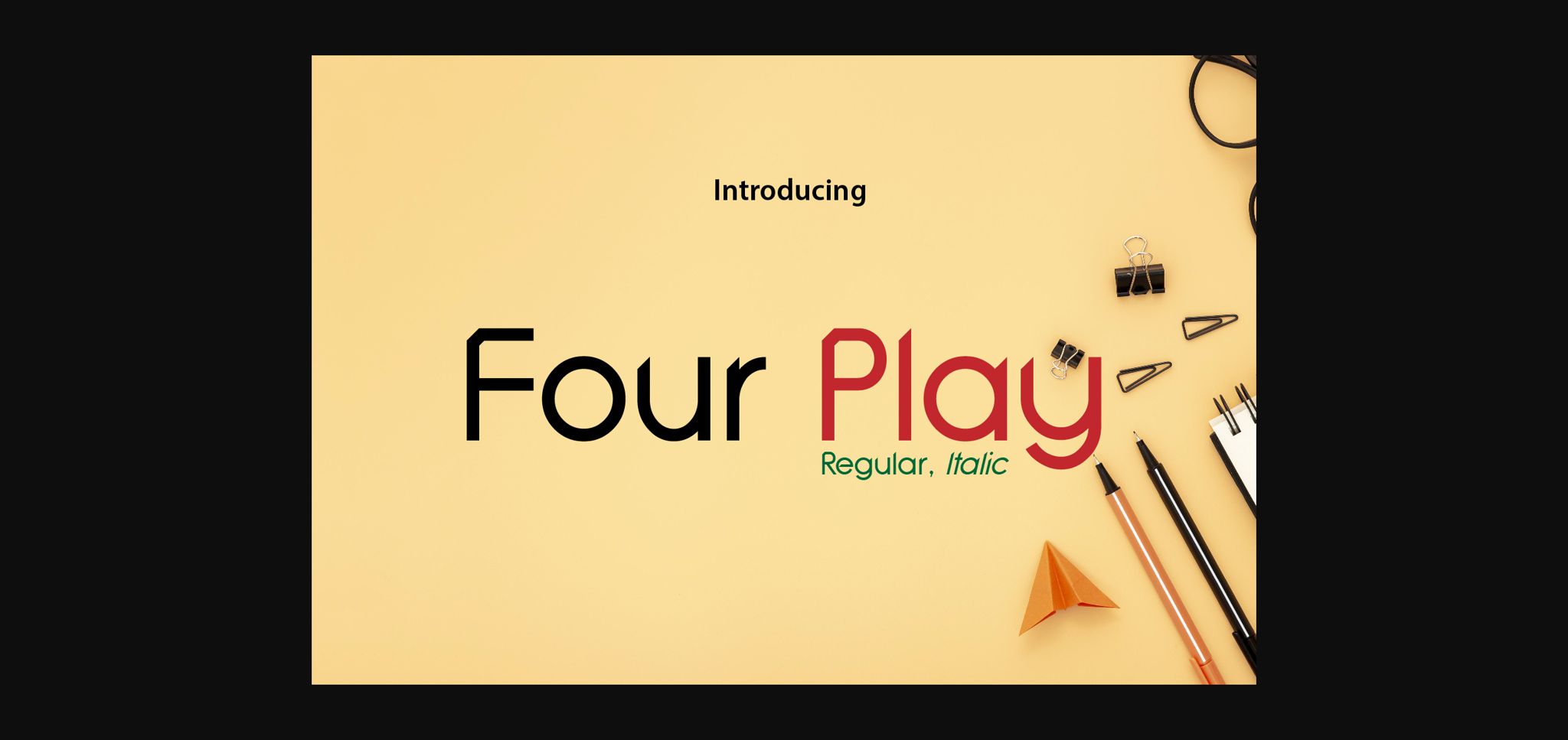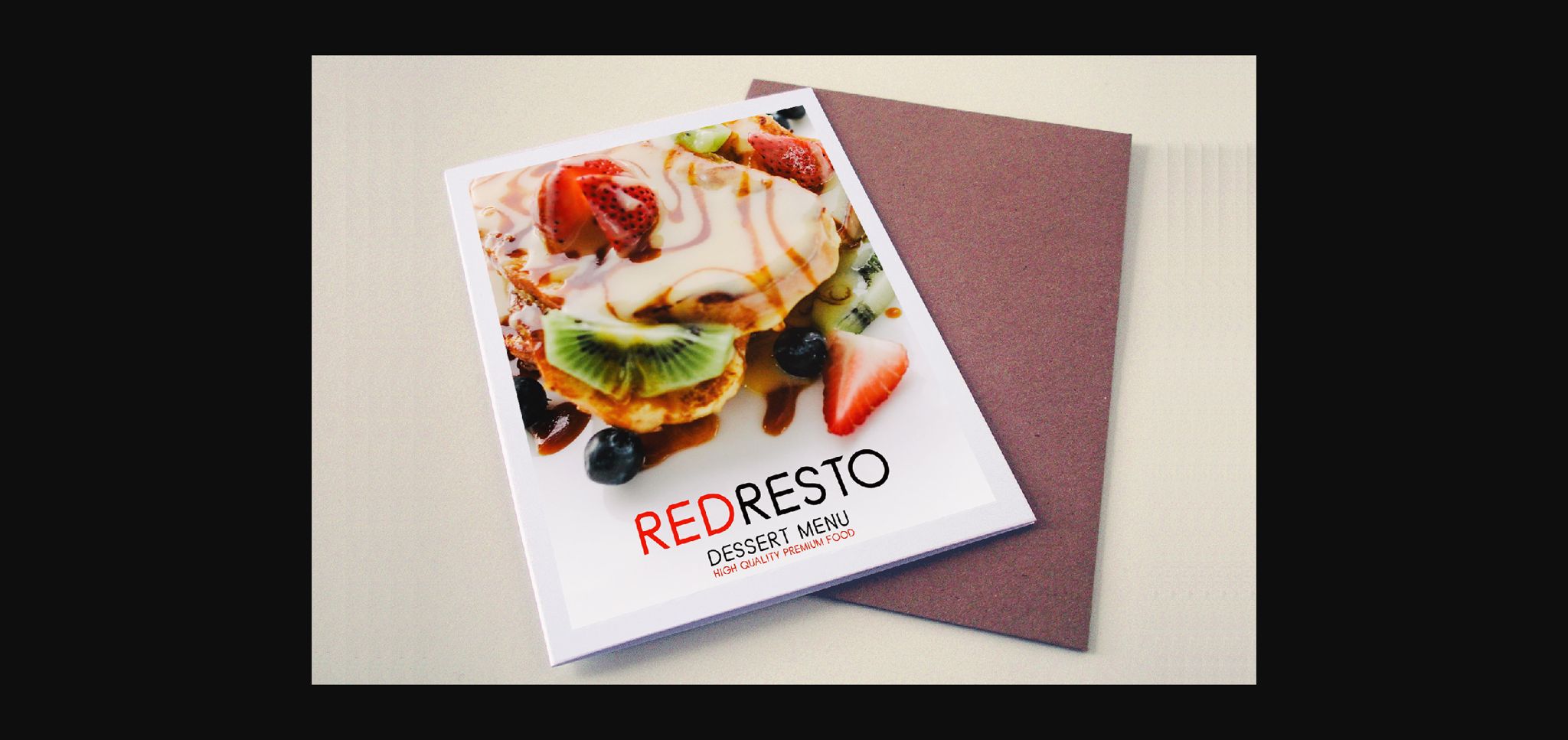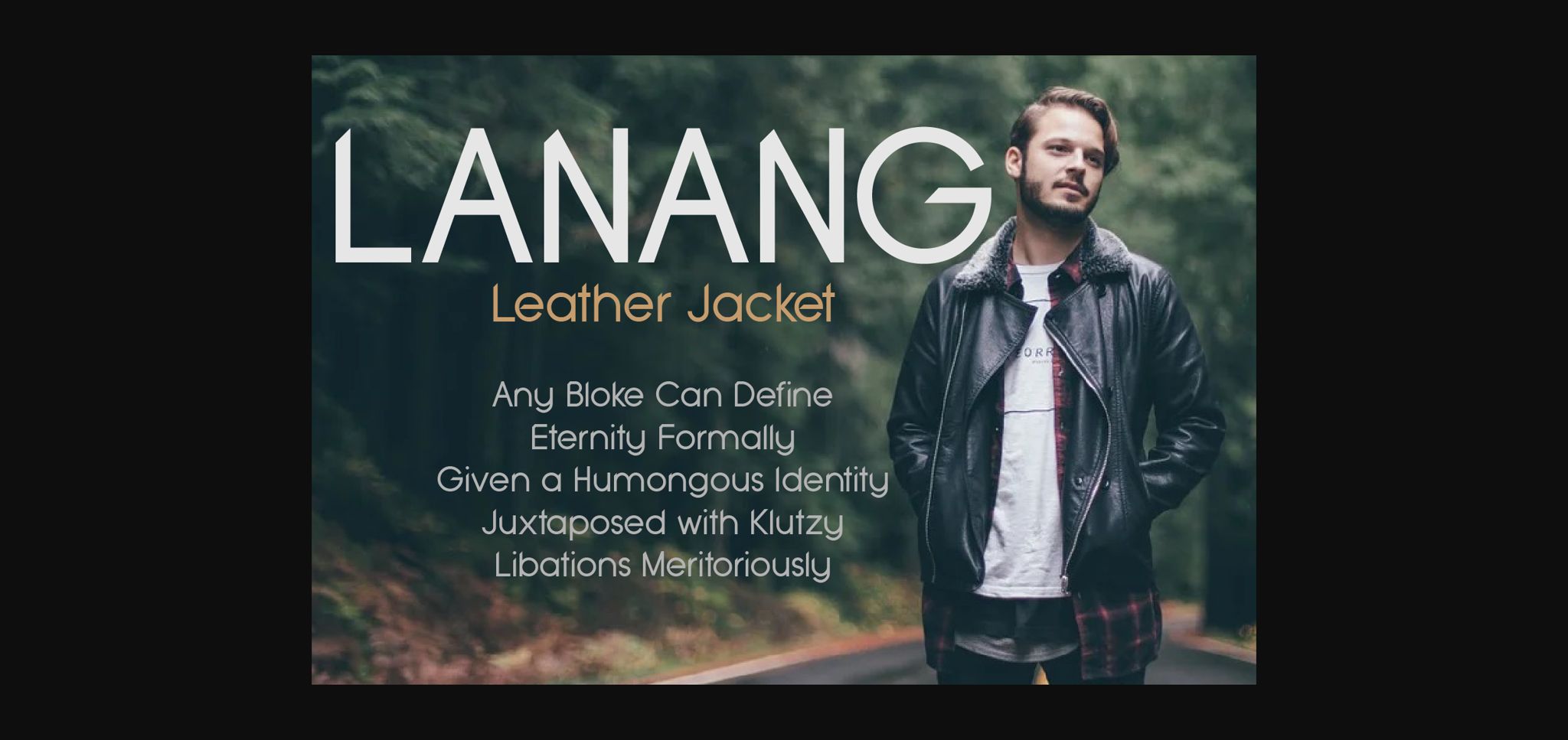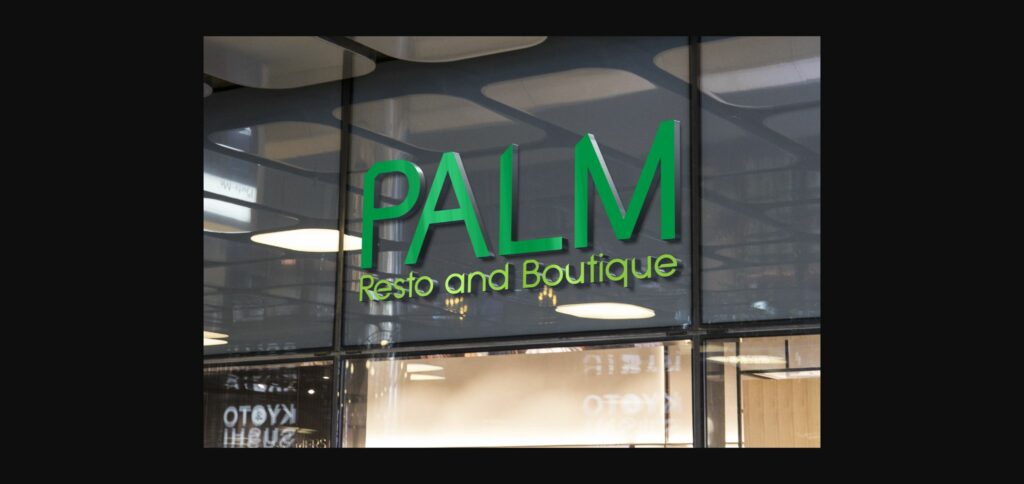
Four Play Font
About Four Play Font
Four Play is a modern and simple lettered sans serif font. Add this font to your favorite creative ideas and notice how it makes them come alive!